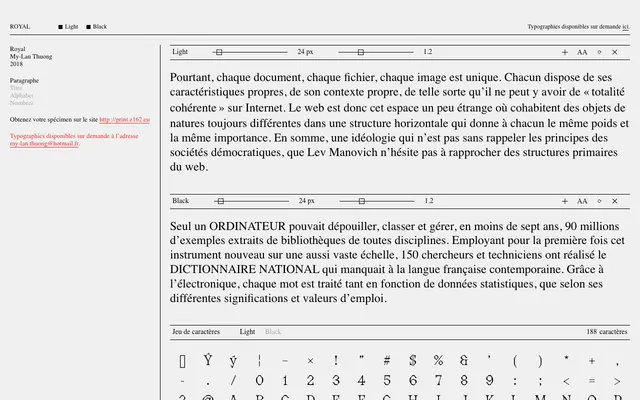
Royal
E162 · My-Lan Thuong · 2018
A two-weight display serif by My-Lan Thuong, offering only a Light and a Black for maximum typographic contrast.
Designed by My-Lan Thuong and released in 2018 under E162, Royal comes in just two weights: Light and Black, making it a tool for high-contrast display settings rather than continuous text. The character set covers 188 glyphs in Latin script. Specimens are available via the E162 print site, with fonts distributed on request.
The two extreme weights, Light and Black, suggest a display-oriented serif designed for contrast and typographic impact rather than extended text use.